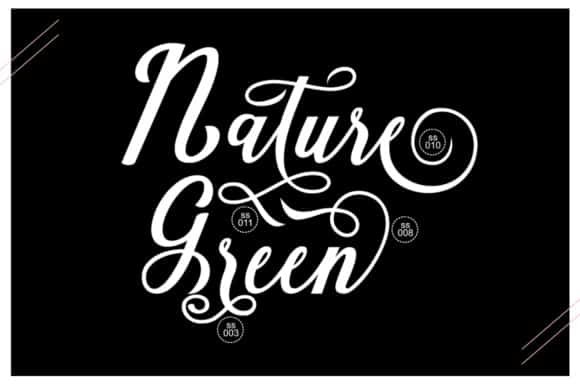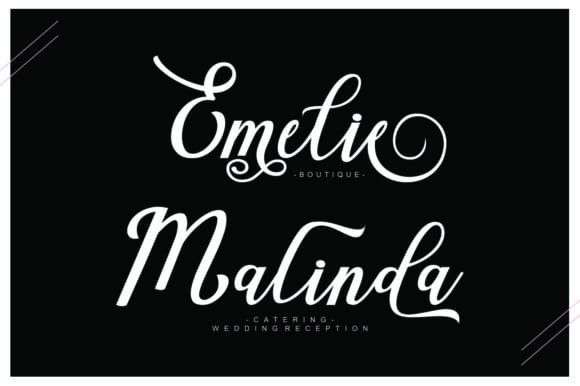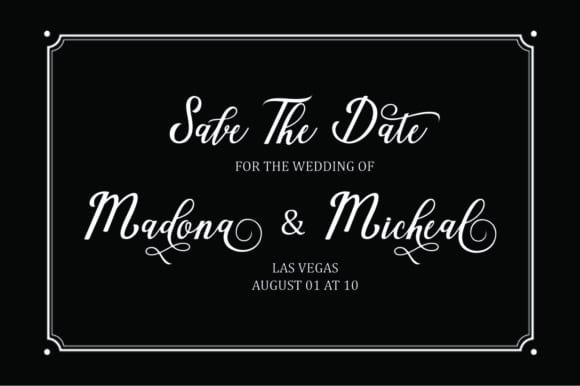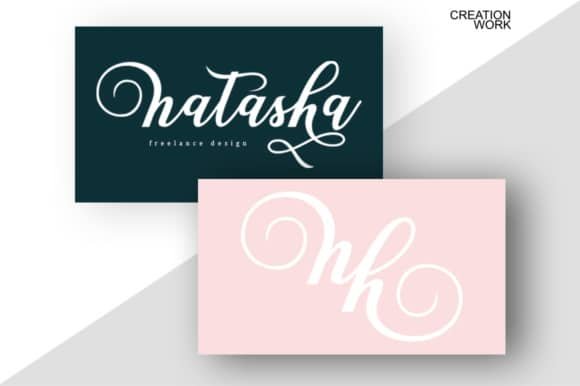
Natural Script Font
Musafir LAB
Natural is a modern, feminine script font. With its elegant style, Natural is perfect for photography, watermarks, quotes, blog headers, posters, weddings, and much more!